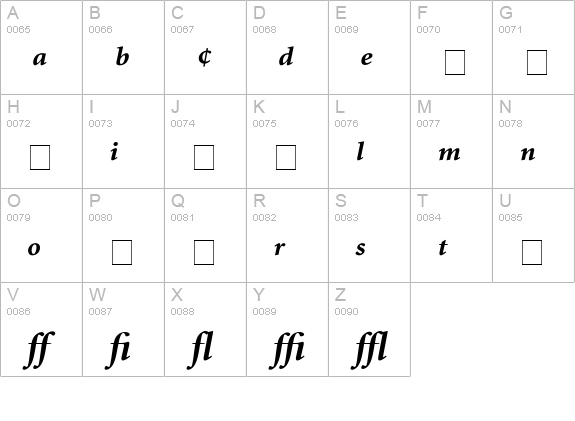
Atlantix Pro Black SSi Bold Italic is a maximum-weight, dramatic, italic variant in the Atlantix typeface family \xE2\x80\x94 well suited to maximum-impact headlines, posters, and packaging.
Atlantix Pro Black SSi Bold Italic font is a striking and bold typeface that exudes power and modernity. Its sleek lines and strong presence make it perfect for headlines, titles, and branding projects that demand attention. The italicized version adds a touch of sophistication and flair to any design. The best part is that Atlantix Pro Black SSi Bold Italic font is available for free download at FontsMarket.com. This means you can easily access this versatile and eye-catching font for your personal and commercial projects without any cost. Don't miss out on this fantastic opportunity to enhance your designs with the Atlantix Pro Black SSi Bold Italic font today!